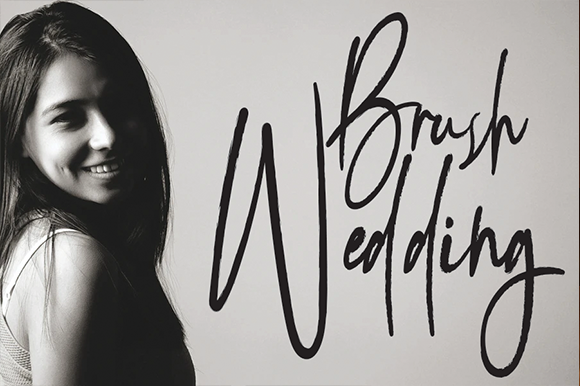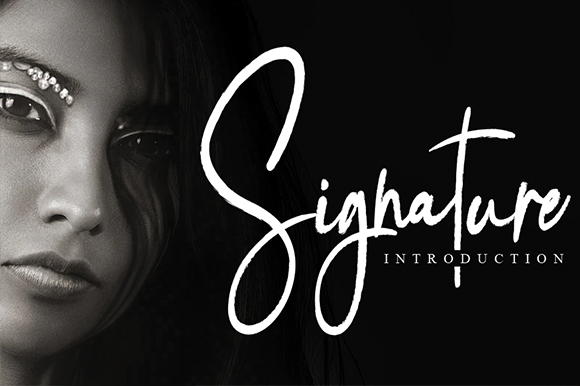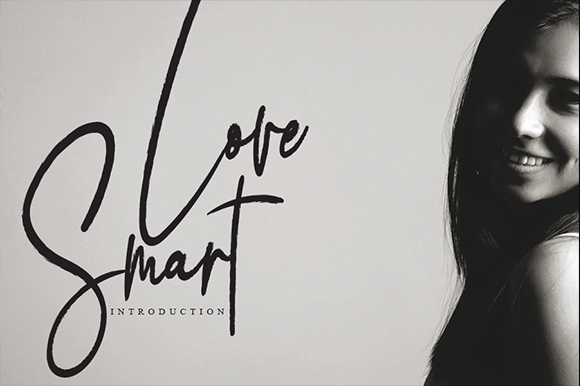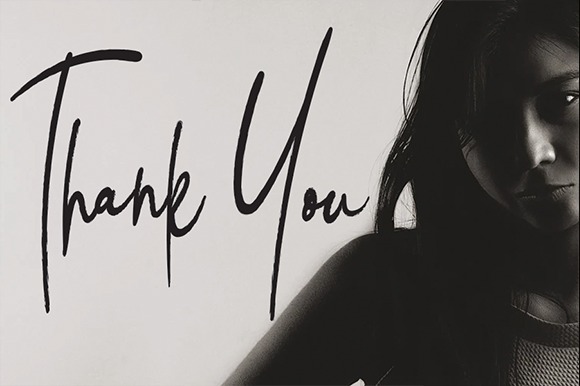
Bellanatture Font
About Bellanatture Font
Bellanatture is a distinct handwritten font, the best choice for any design that requires a handwritten touch. Fall in love with its incredibly versatile style and use it to create gorgeous wedding invitations, beautiful stationary art, eye-catching social media posts, and much more!